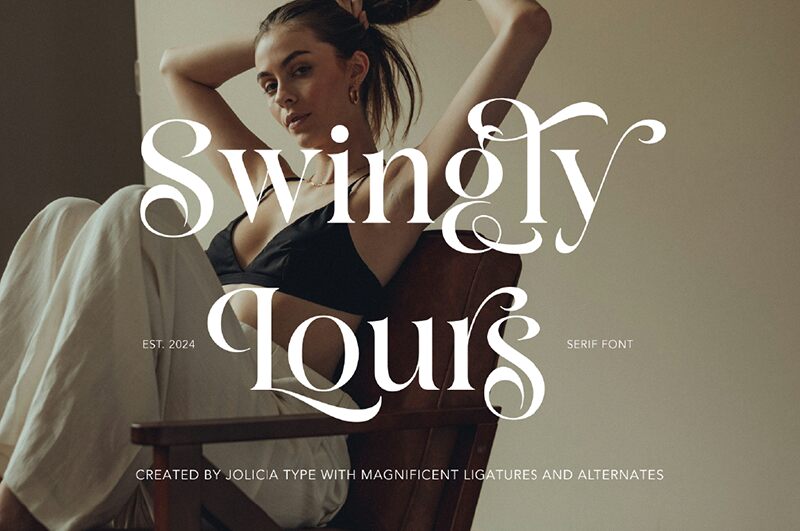
Swingly Lours font is a beautiful free serif font designed with elegance and sophistication in mind. Created by Jolicia Type Foundry, this font impresses with its stylish artistic look that is not only refined, but also extremely expressive. And being inspired by the classics, it was built using a traditional character approach with classic elements presenting classy characters that give the font some luxurious visual cues.
It can be used for dramatic projects or for romantic ones, and for designs that require an artistic effect. Swingly Lours is simply a versatile typeface that can be used for all kinds of design purposes and work. Integrate it into your branding project then use it when you create your logos, seals, or badges. It would look great on your book cover and magazine covers and it would be just as impressive on your online platforms.
Meet Swingly Lours, the epitome of serif elegance, enriched with magnificent ligatures and a plethora of alternates. This font transforms your typography into a visual symphony, striking the perfect balance between classic sophistication and contemporary creativity. Experience the beauty of this free font and elevate your design projects with its unique charm.